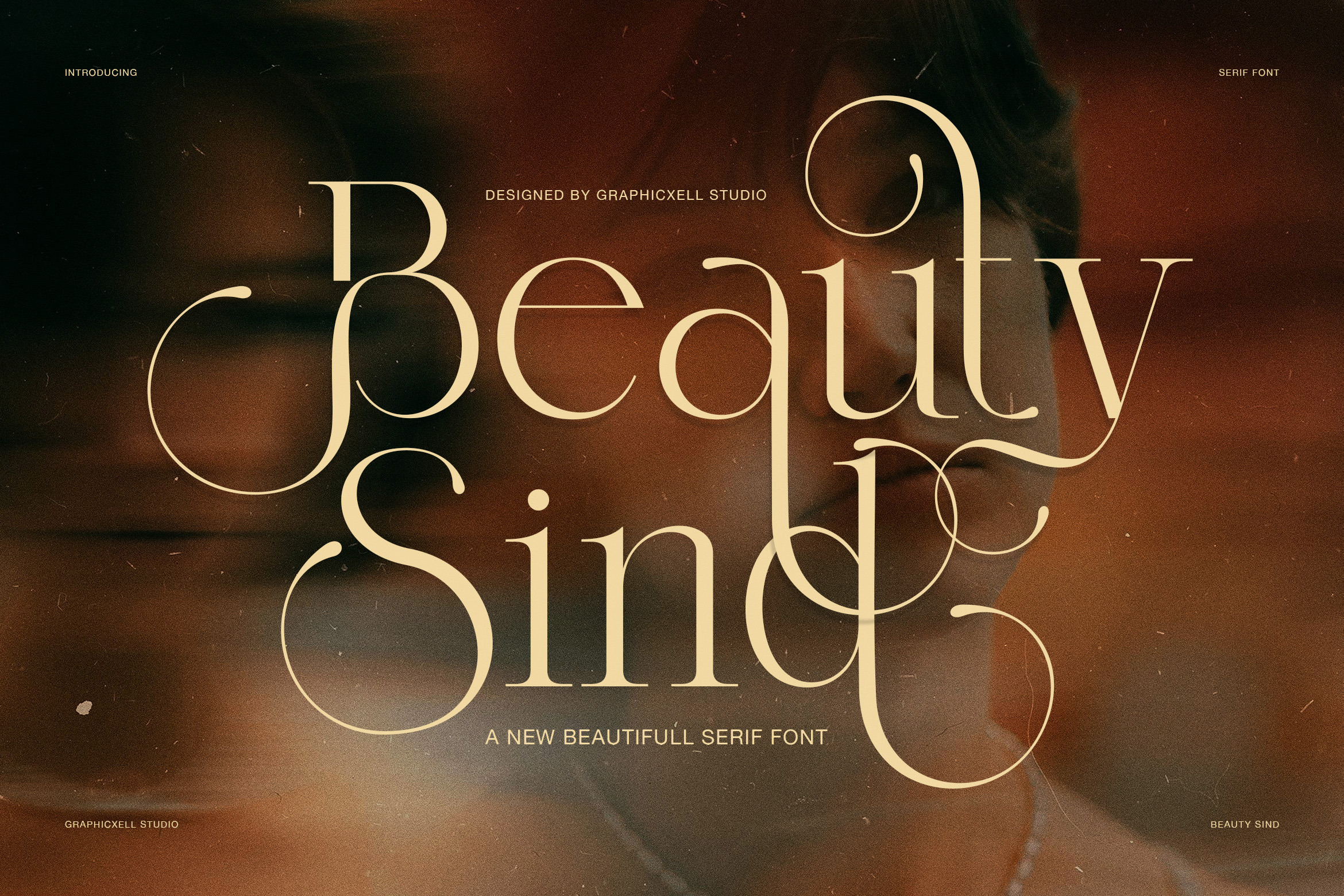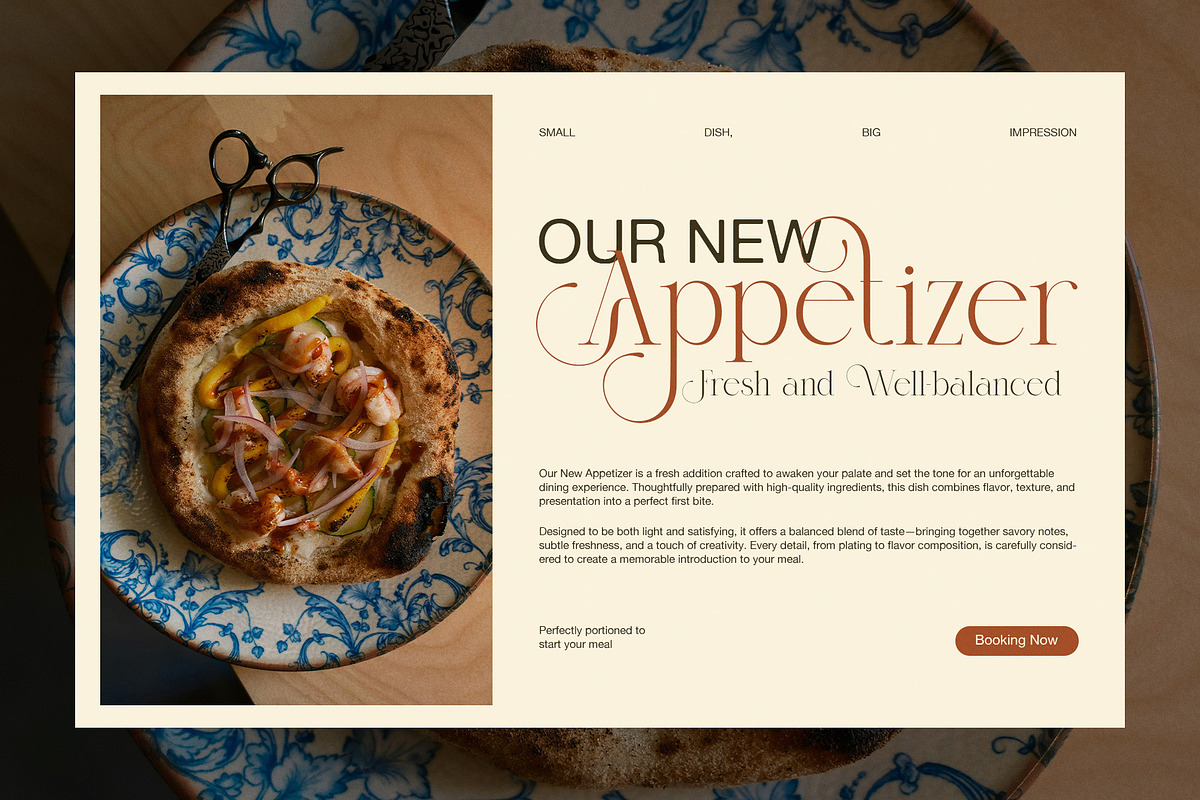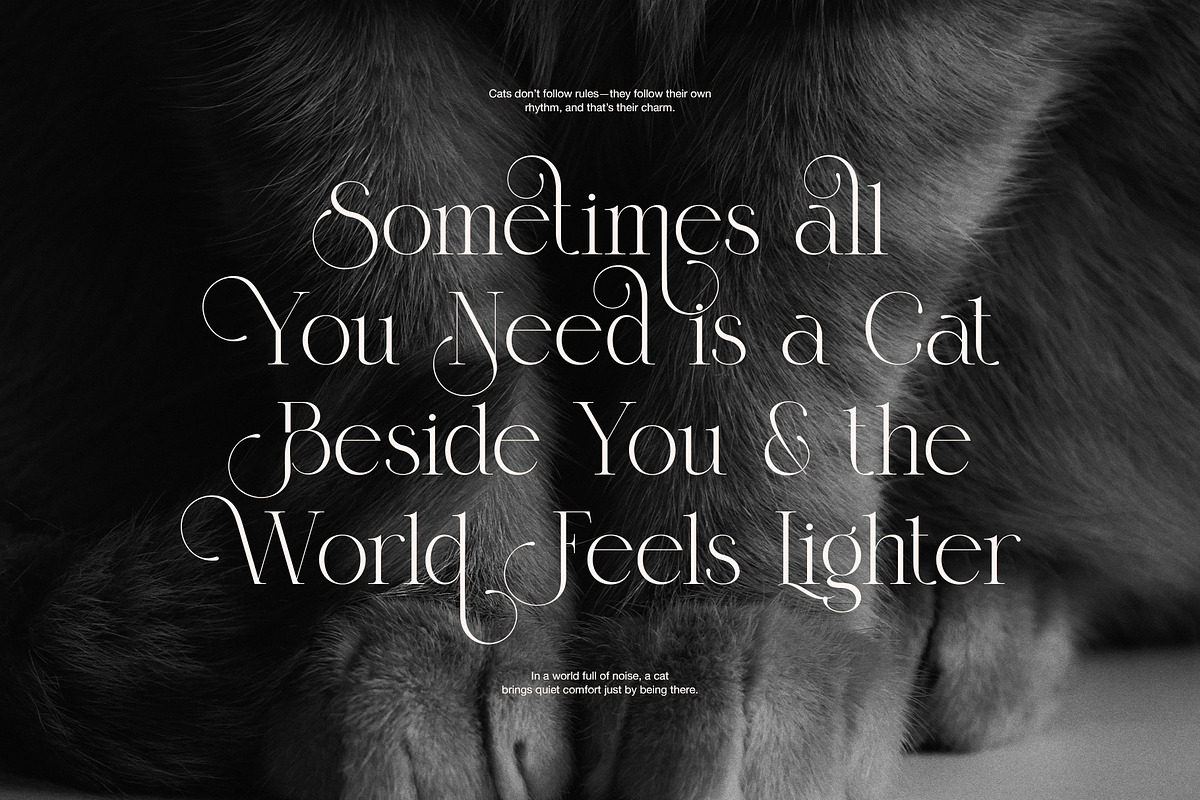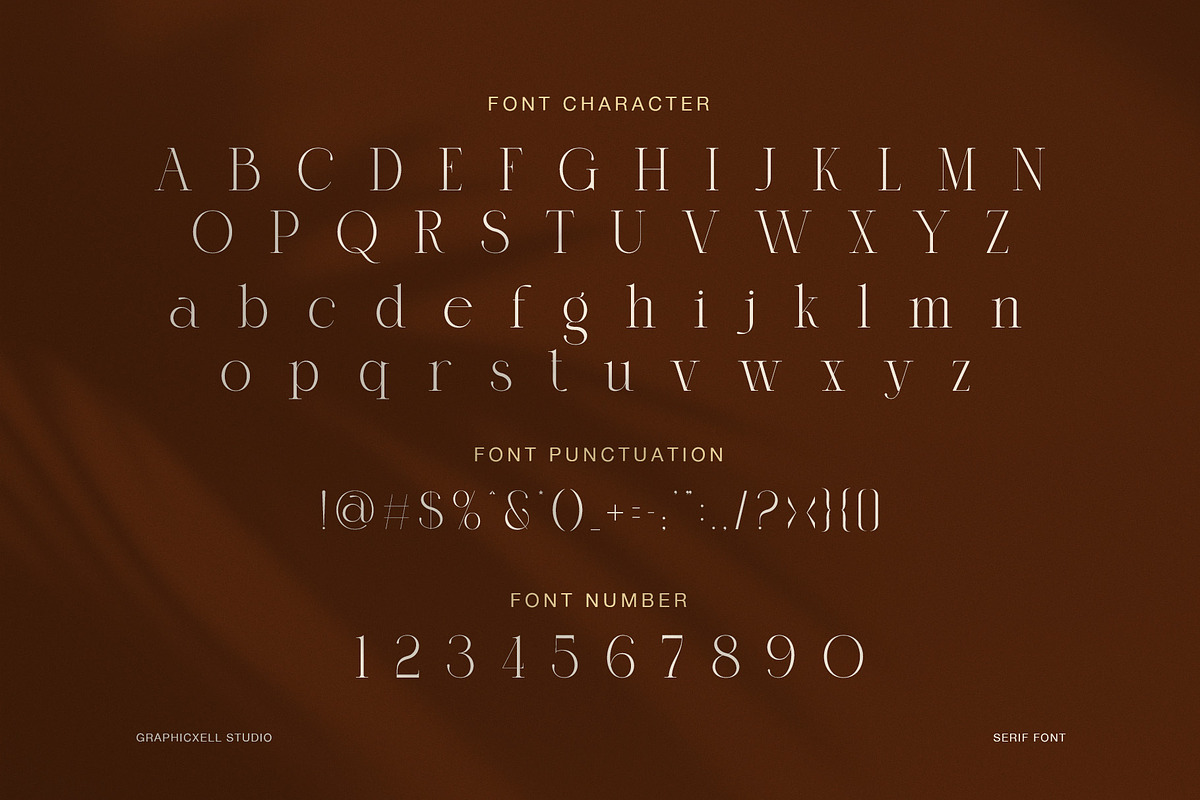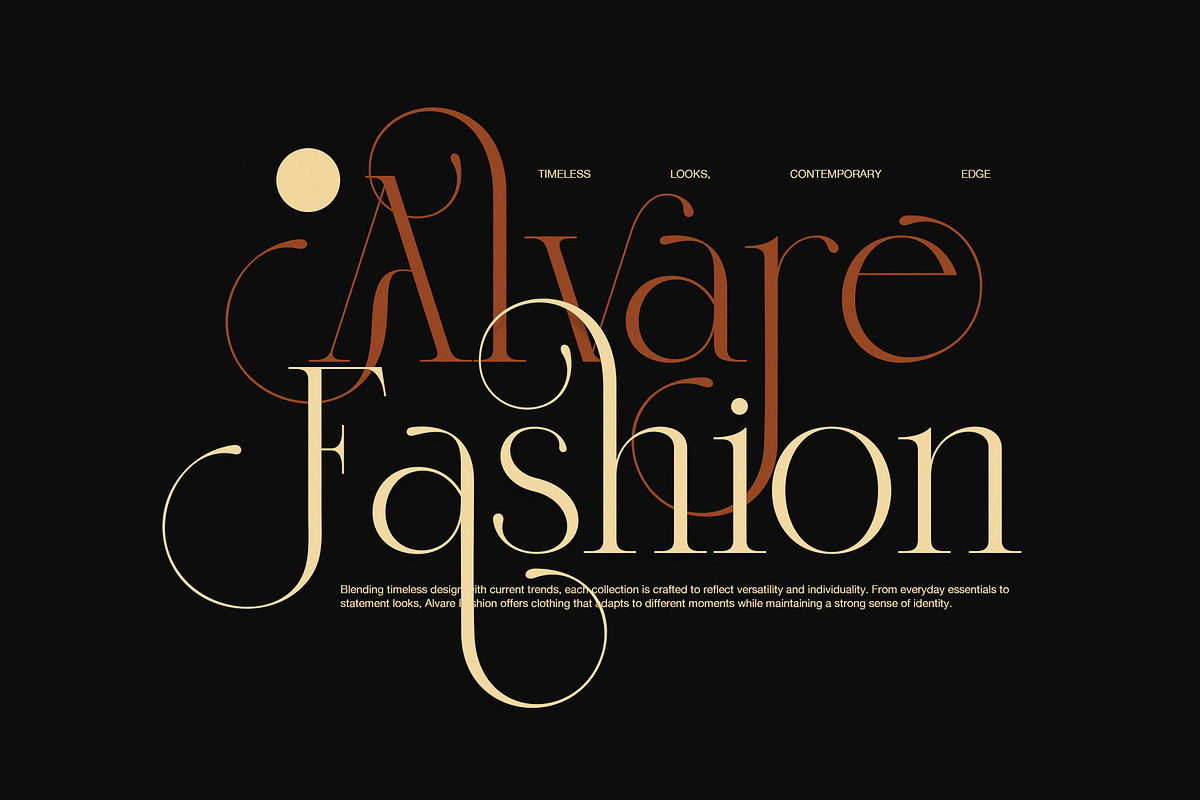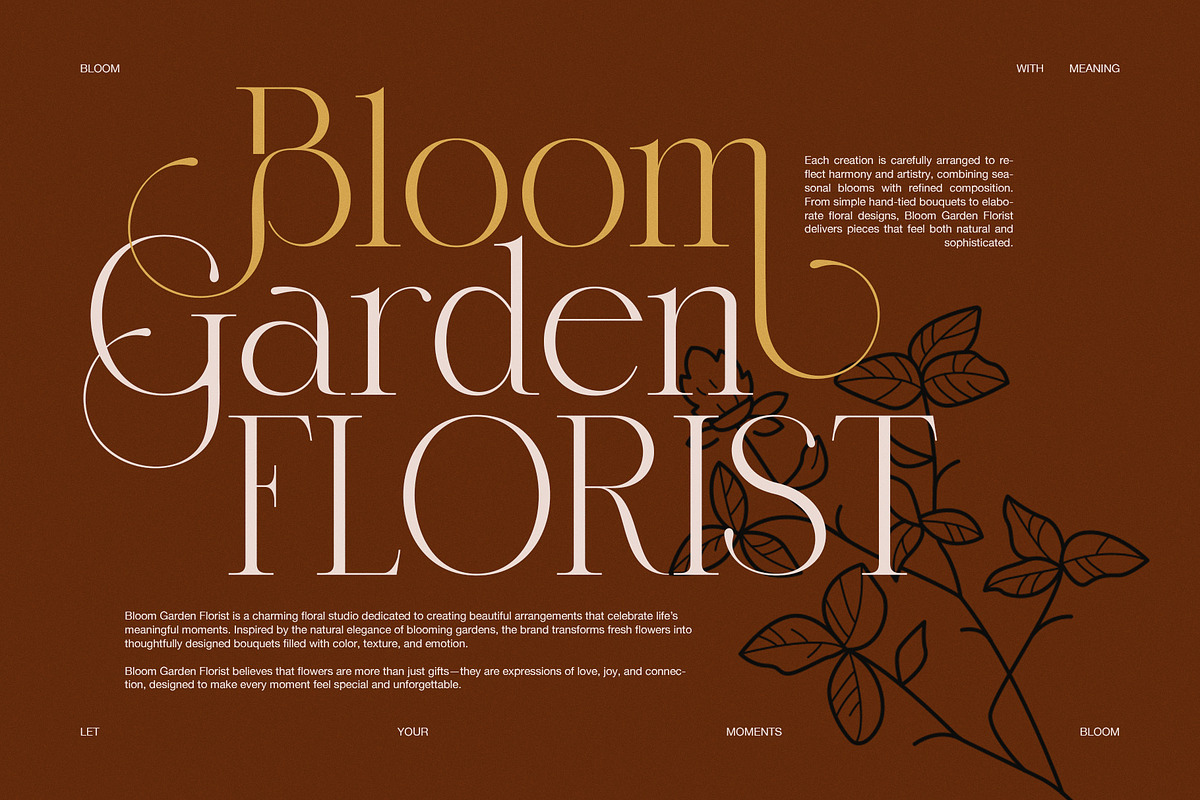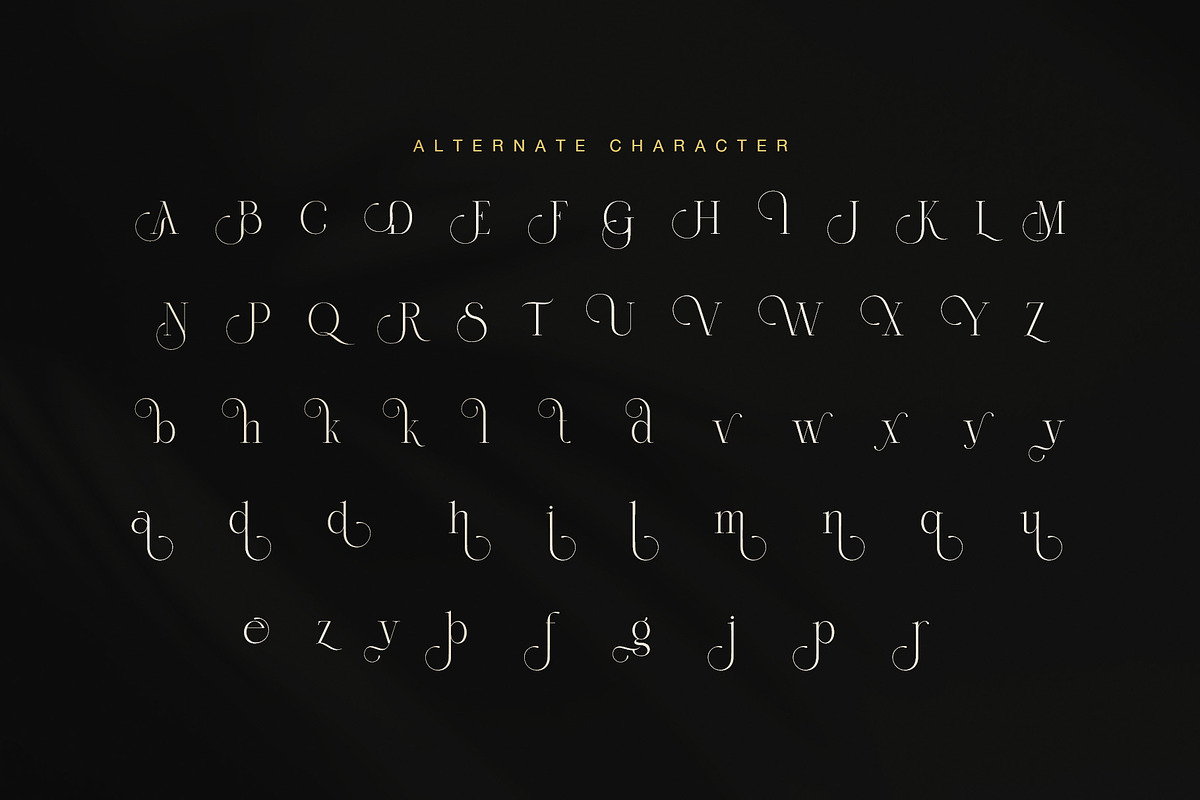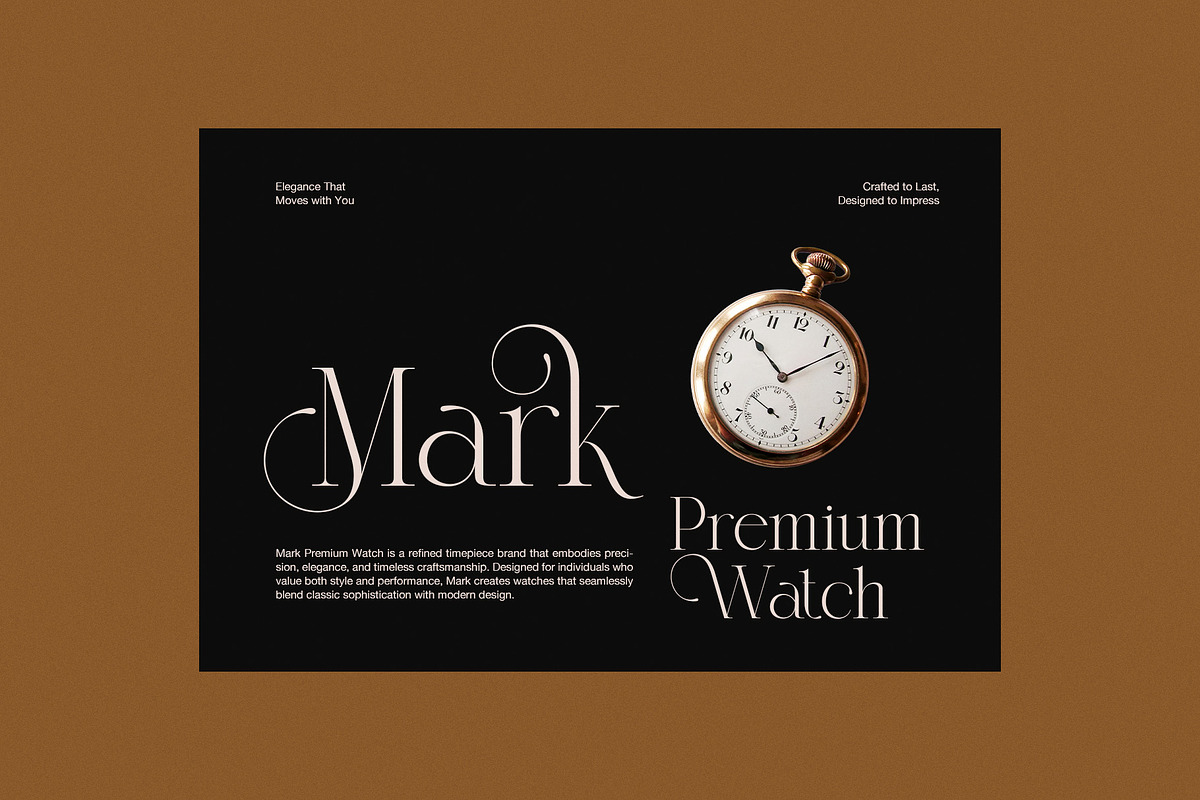
Beauty Sind Elegant Serif Font
Elegant Serif Style
Beauty Sind Elegant Serif Font is a graceful display serif made for designs that need beauty, charm, and a high-end mood. Its thin strokes, soft curves, and smooth swashes create a stylish look that feels both classic and modern.
Letterform Shape
This font has a refined serif shape with a strong fashion style. Because of its long loops and flowing details, Beauty Sind can turn simple words into eye-catching typography. Therefore, it is a great choice for brands that want to look elegant and memorable.
The letterforms show tall shapes, fine contrast, and soft rounded endings. Also, the alternate characters add more creative value. They help each word feel more personal, artistic, and unique without losing a clean layout.
Best Font Uses
Beauty Sind works best in large text, such as logos, titles, posters, and packaging. Moreover, its swash letters are perfect for design projects that need a soft luxury tone. The font looks beautiful on dark backgrounds, warm color palettes, and clean editorial layouts.
Best uses for Beauty Sind include:
- Fashion brand logos
- Beauty and skincare branding
- Luxury product packaging
- Restaurant menu headlines
- Floral studio identity
- Wedding invitations
- Magazine covers
- Jewelry and watch branding
- Quote posters
- Boutique social media posts
- Branding Benefits
In addition, Beauty Sind pairs well with a simple sans serif font. This balance keeps the design easy to read while the serif letters add style. As a result, your layout can feel premium, clear, and professional.
Because the font includes elegant alternates, designers can create many different looks from one typeface. For example, it can feel romantic for wedding designs, bold for fashion campaigns, or calm for lifestyle branding.
Final Thoughts
Beauty Sind is useful for both digital and print projects. You can use it for website headers, product labels, business cards, invitations, and ad banners. However, it is best used for short text because its decorative style needs space.